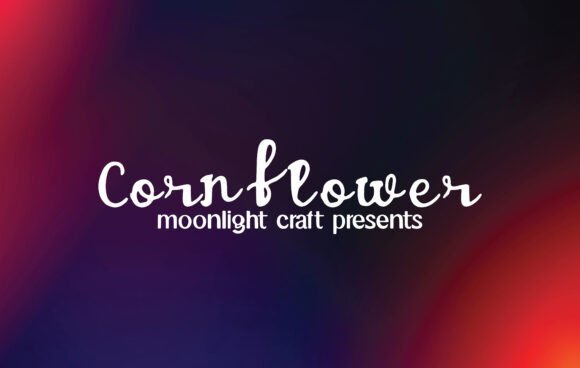
Unleash Your Creativity with the Cornflower Font
Have you ever been stuck in a creative rut, staring at a blank page or screen, wondering where to start? You’re not alone. We’ve all been there at some point or another. But sometimes, all it takes is a spark of inspiration to get those creative juices flowing. For me, that spark came in the form of the stunning Cornflower Font – a beautiful handwritten font that brings a touch of elegance and whimsy to any design.
Designed to help you take your creative ideas to new heights, the Cornflower Font is the perfect choice for creating eye-catching logos, branding, and quotes that truly stand out from the crowd. As a designer, you know how valuable it is to have the right tools at your disposal, and that’s exactly what the Cornflower Font offers – a unique and versatile font that’s sure to elevate your designs to the next level.
Cornflower Font Key Features
- Unique Characteristics: The Cornflower Font features a distinctive, elegant design with subtle floral motifs, making it suitable for creative and decorative typography.
Cornflower Font Review
I’ve had the chance to work with the Cornflower font, and I have mixed feelings about it. Here’s a balanced review of its strengths and weaknesses.
- The Cornflower font has a beautiful, delicate touch that’s perfect for projects with a vintage or whimsical feel.
- The font is highly legible, even at small font sizes, making it great for body text or captions.
- The font’s unique character set includes some lovely flourishes and swashes that add a touch of elegance to headings and titles.
Any limitations ⚠️
- The Cornflower font may be too delicate for some projects, particularly those with a bold or edgy feel.
- The font’s unique character set can also make it difficult to read for some users, particularly those with visual impairments.
- The font’s OpenType features can be a bit finicky, requiring some experimentation to get the most out of it.
Overall, I think the Cornflower font is a beautiful choice for the right project. While it may have some limitations, its unique character and high legibility make it a great option for designers looking for something a bit different. Just be sure to test it thoroughly before committing to a project, and consider the needs and preferences of your audience.
Tips for Getting the Most Out of the Cornflower Font
The Cornflower Font is a beautiful, elegant font that works well for a variety of applications.
Use it for wedding invitations, baby announcements, or other special occasions.
Experiment with different font sizes and styles to create a unique and eye-catching design.
Pair the Cornflower Font with a simple background or texture to let the font be the focal point of your design.